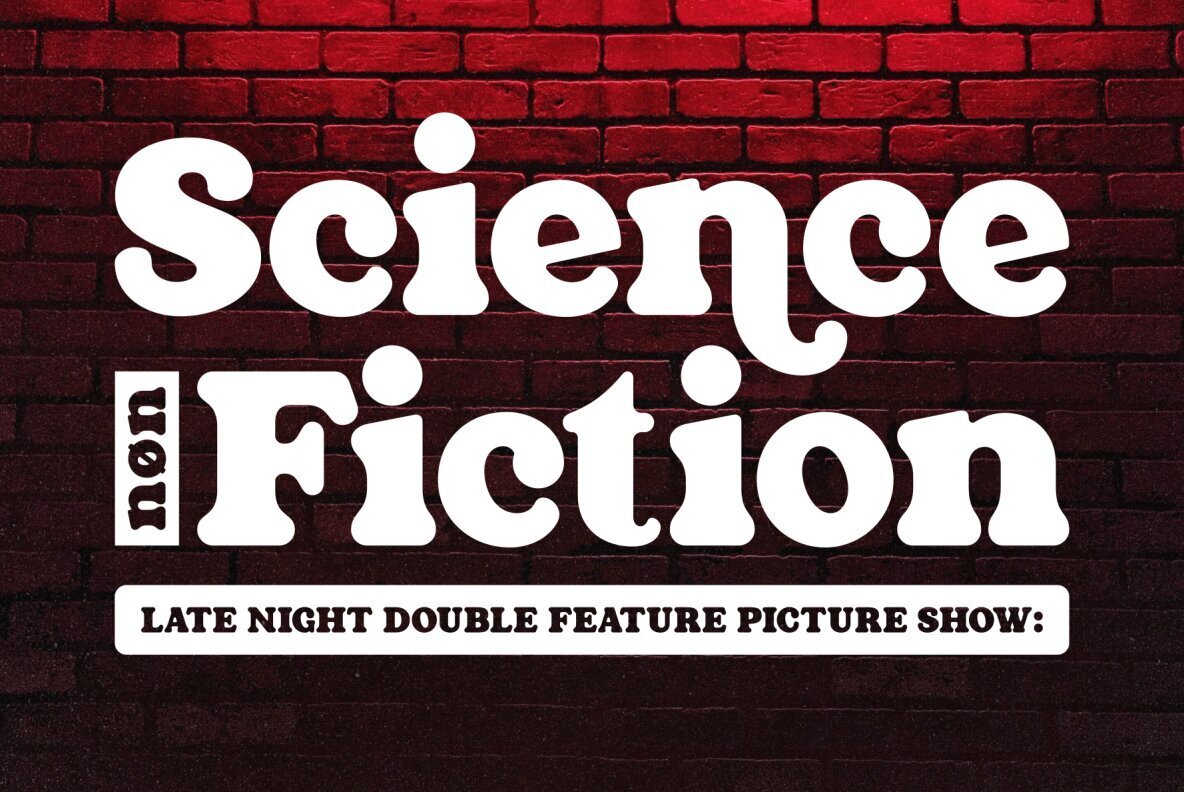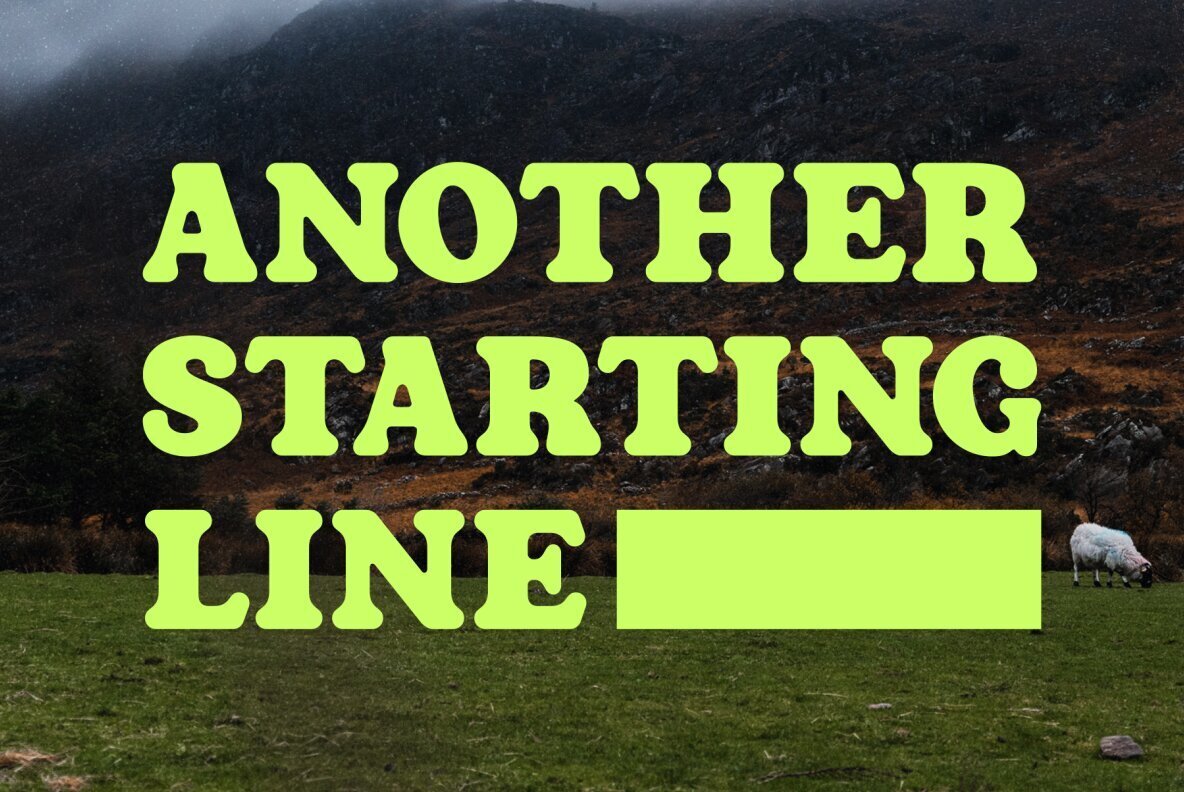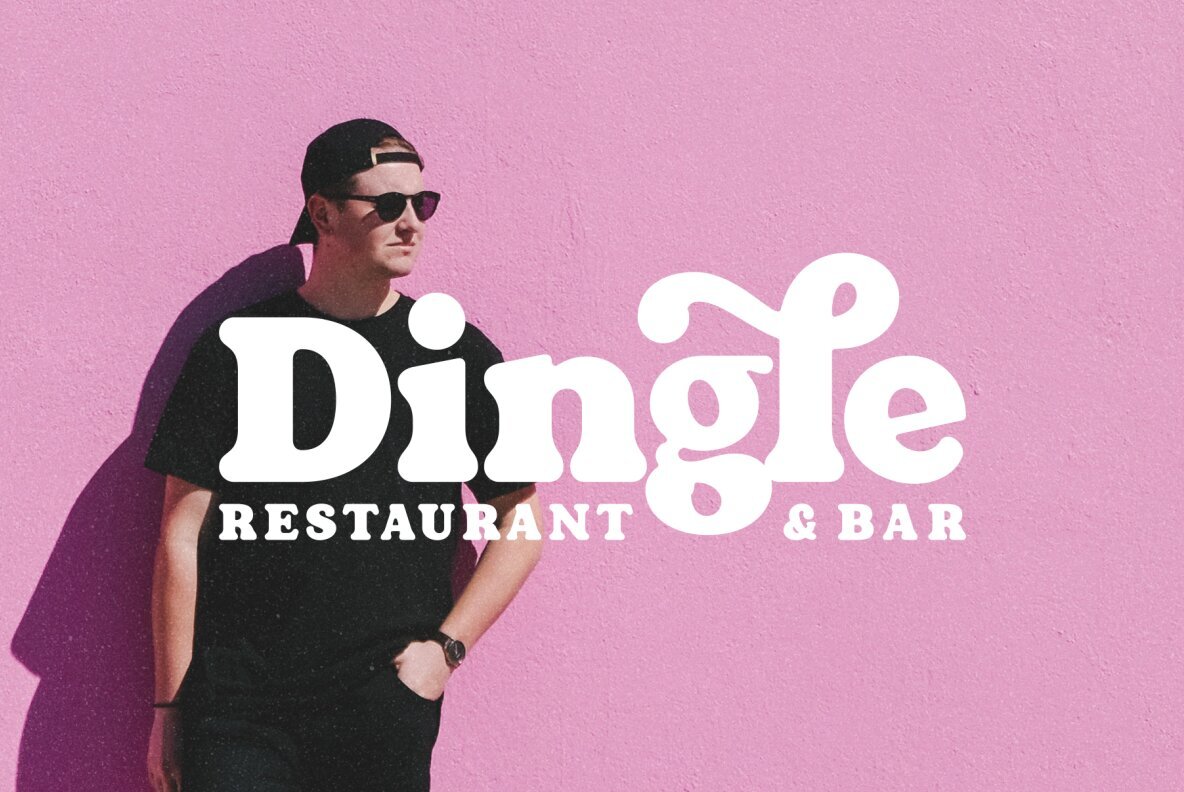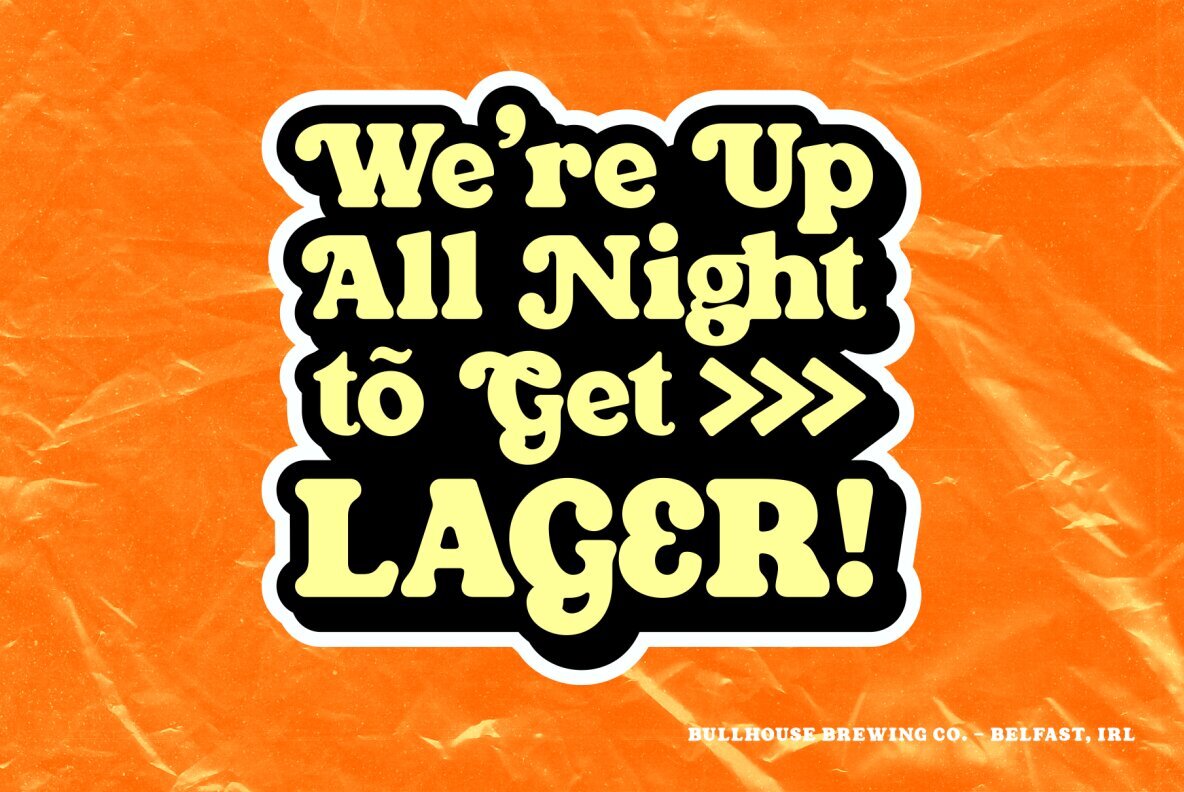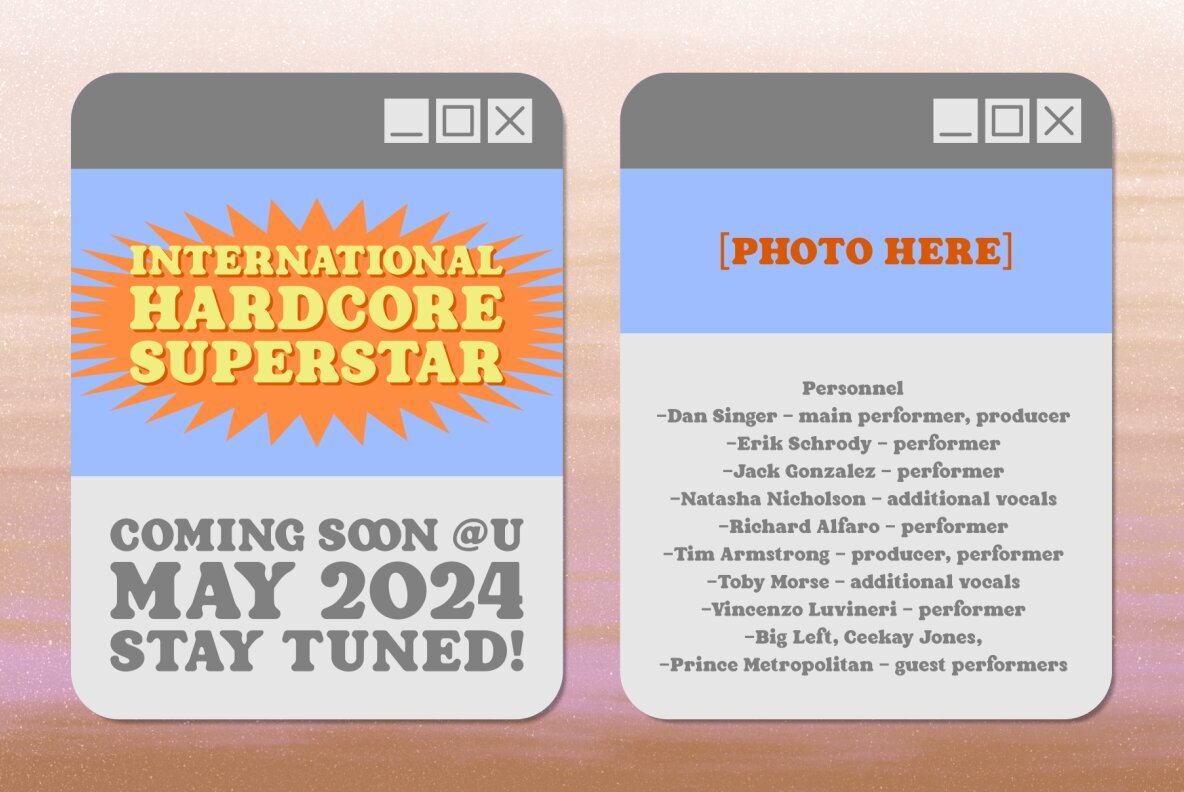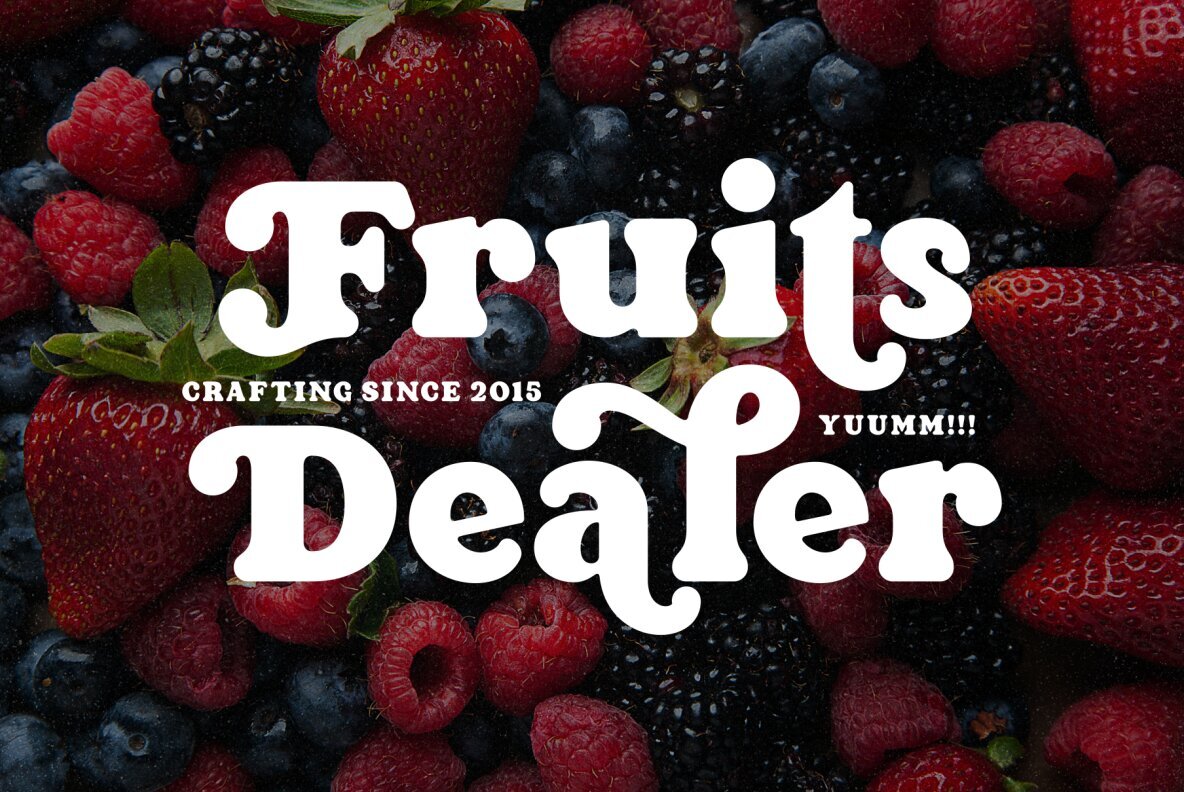
Guckly Font
Guckly Regular
Guckly is a new font release inspired by classic typography. It is meticulously crafted to offer smooth lines and rounded edges, making it ideal for projects such as posters, headlines, logos, branding, and packaging.Guckly: A Classic-Inspired Typeface with Rounded Edges